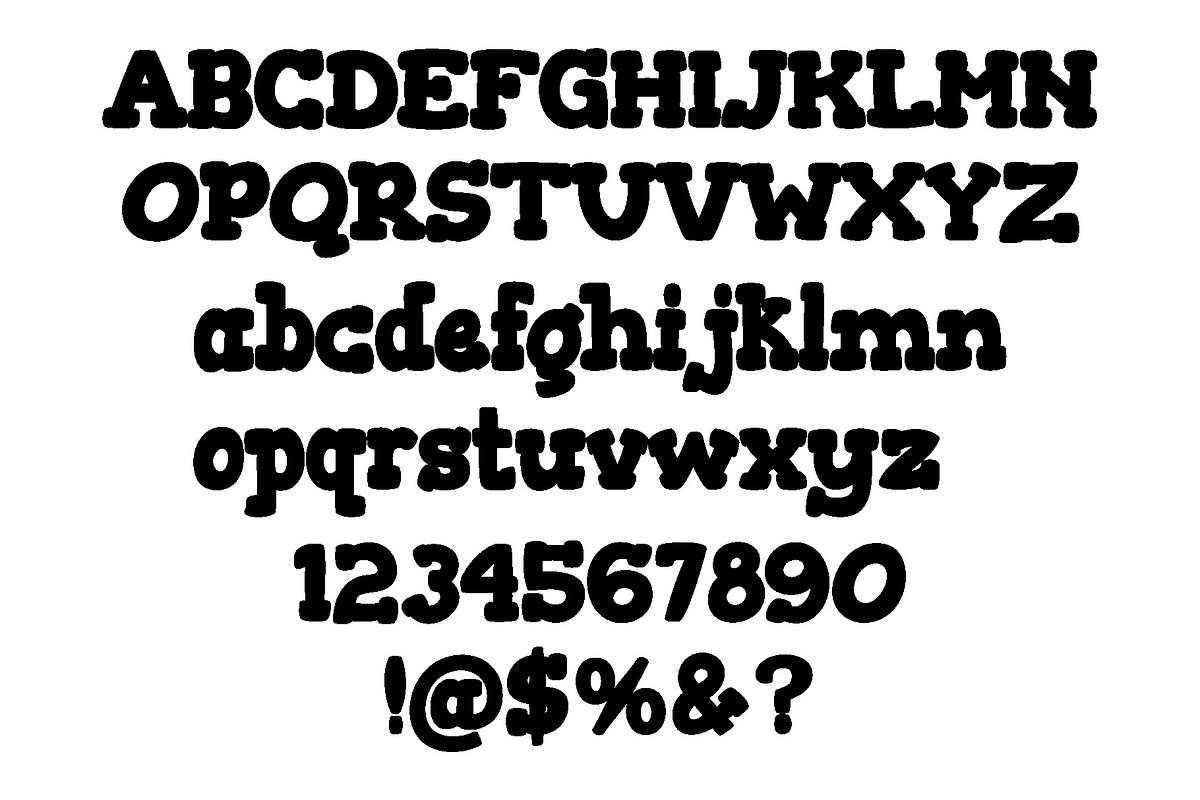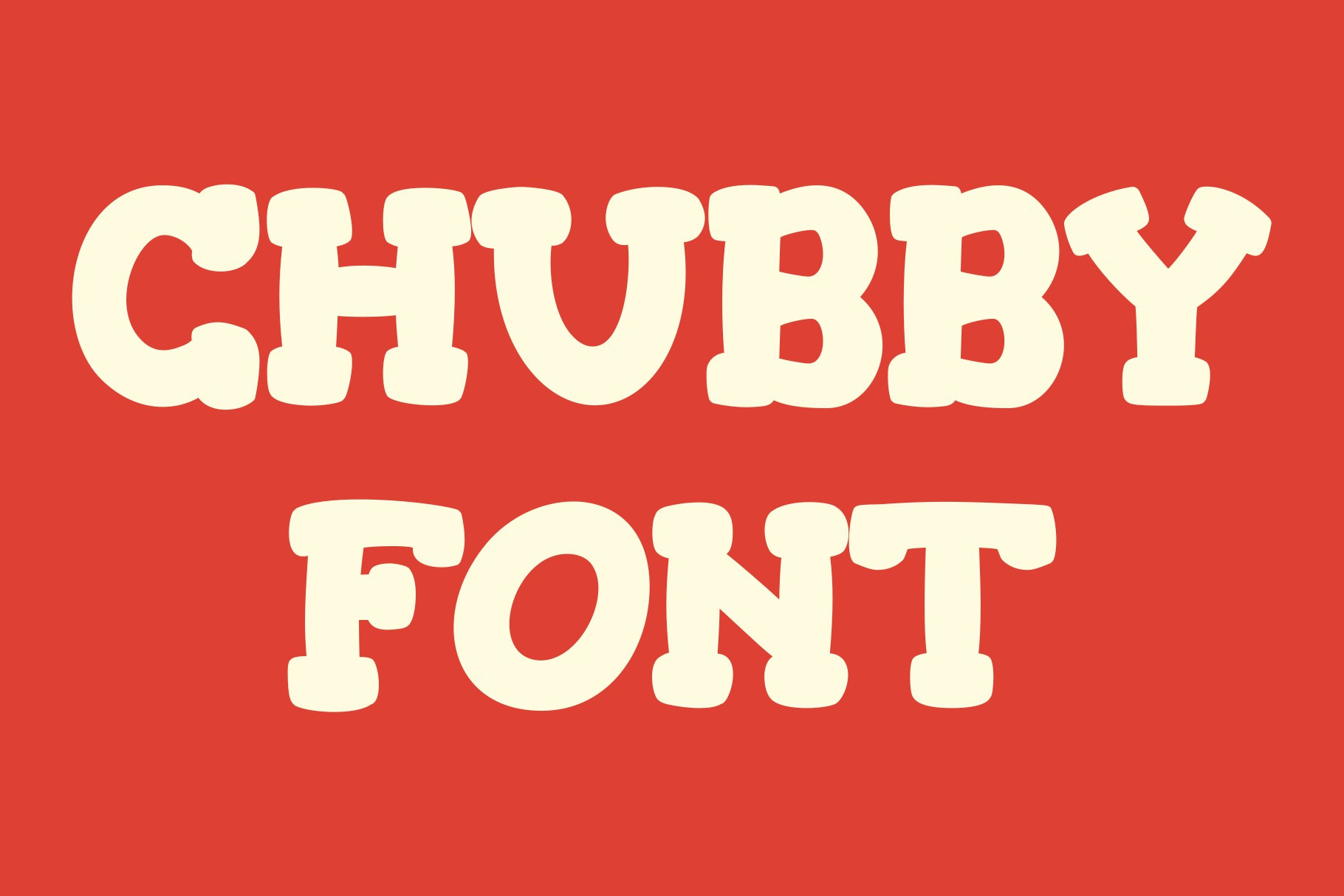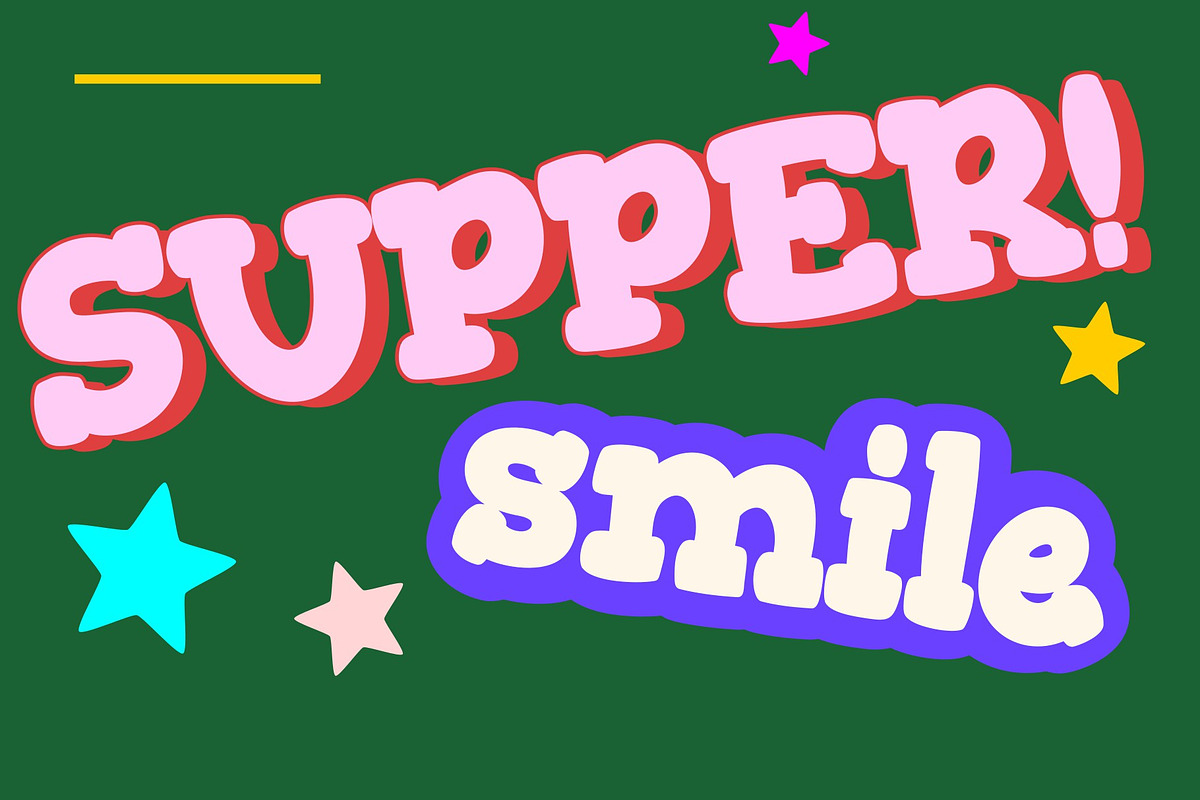
chubby vintage cute display font
It is a display font that looks chubby and vintage and cute, you can use it for a lot of occasions, tattoo, cartoon, poster, brochure, etc.